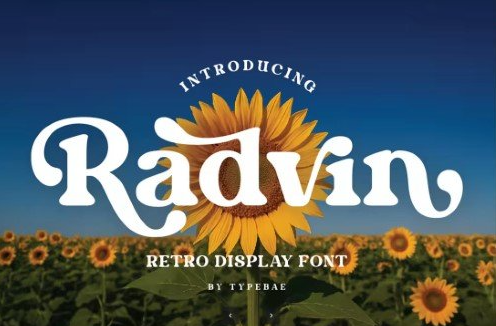
Creativemarket – Radvin – Bold Retro Display Font
Creativemarket Radvin – Bold Retro Display Font
Creativemarket – Radvin – Bold Retro Display FontRadvin is a bold retro typeface with a touch of vintage style, perfect for creating standout typography. It comes with 4 styles: Regular, Slanted, Outline, and Outline Slanted, plus 111 stylistic alternates for endless creative options. Ideal for logos, posters, magazines, headlines, and branding projects.